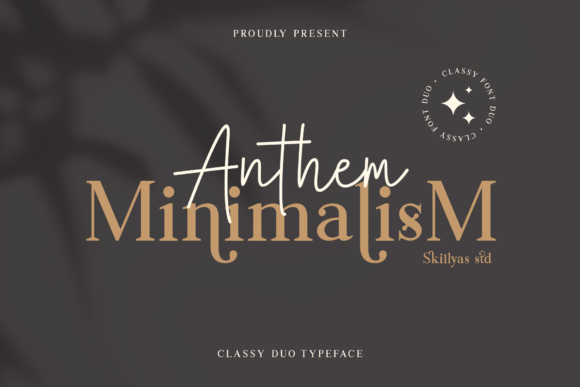
The Designer’s Delight: Anthem Minimalism Duo Font
The Anthem Minimalism Duo Font is a stunning combination of serif and script fonts that can elevate any design project. Here’s what I love about it:
• ✨ Elegant and modern aesthetic
• 💕 Perfect for wedding invitations, thank you cards, quotes, and greeting cards
• 🎨 Versatile and customizable for various design projects
While it’s an excellent font, there are a few minor quirks to consider:
• 🤔 Some users may find the font a bit too delicate for certain design projects
• ⚠️ Limited availability of language support
The Anthem Minimalism Duo Font was crafted with the intention of providing a versatile, elegant font solution for designers. The creator aimed to combine the sophistication of serif fonts with the flair of script fonts, resulting in a unique and captivating design tool.
What is the Anthem Minimalism Duo Font best used for? The Anthem Minimalism Duo Font is perfect for wedding invitations, thank you cards, quotes, greeting cards, logos, business cards, and any design project that requires a touch of elegance and sophistication.
Is the Anthem Minimalism Duo Font PUA encoded? Yes, the Anthem Minimalism Duo Font is PUA encoded, making it easy to access all glyphs and swashes.
Is the Anthem Minimalism Duo Font suitable for body text? While it’s an elegant font, it’s recommended to use it for headings, titles, or short paragraphs due to its delicate nature.